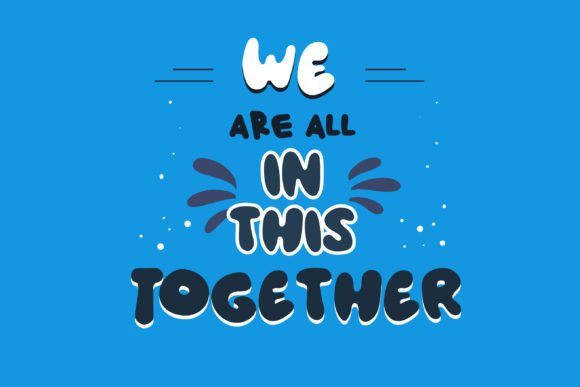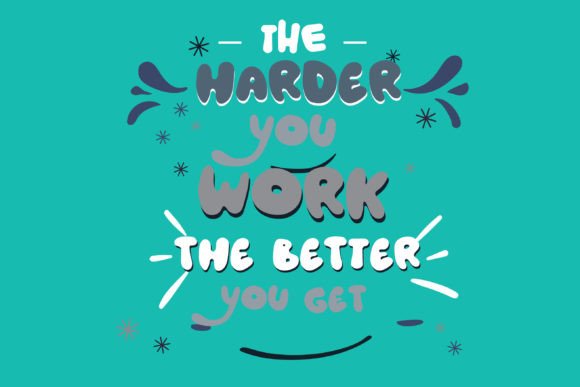
Bluejay Font
Bluejay is a friendly and chubby font. Its letters are round and smooth, like little bubbles. It’s easy to read and looks cheerful on any project.